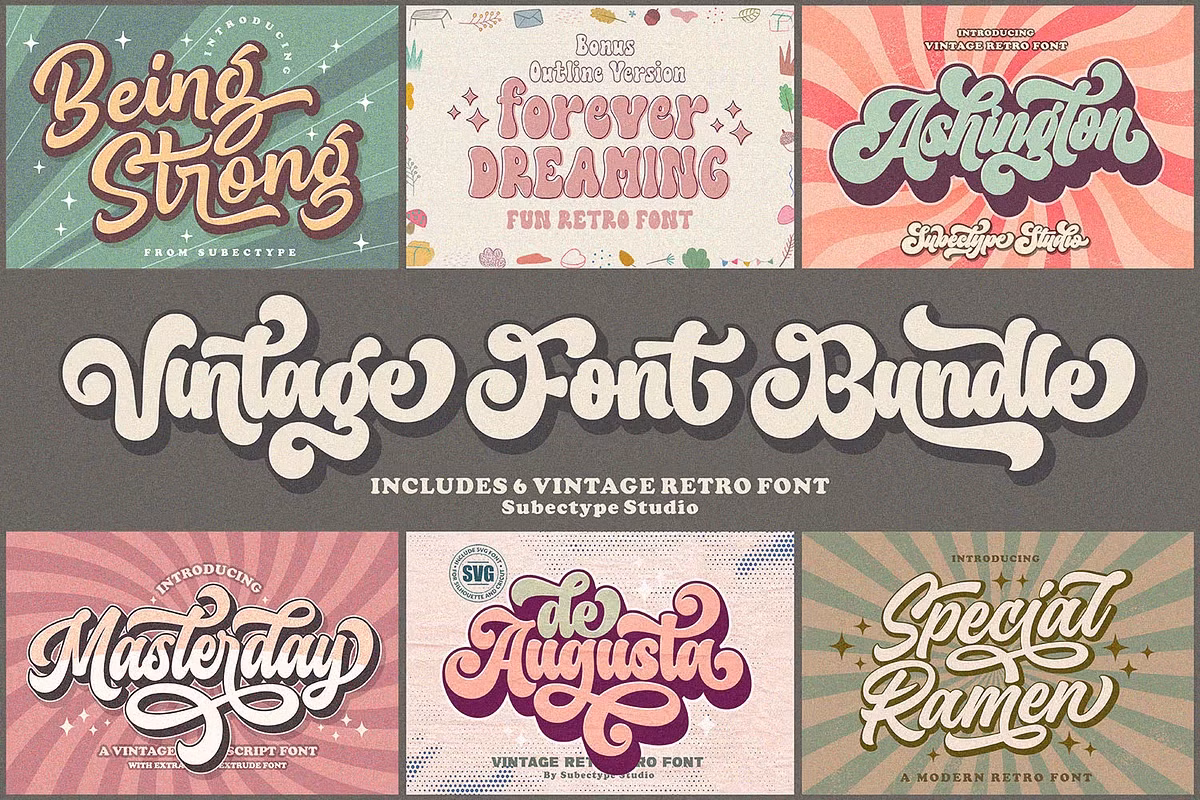
Vintage Retro Font Bundle Free Download
Vintage Retro Font Bundle Free Download is a carefully curated collection of typefaces inspired by the bold, eye-catching designs of the past. Featuring a variety of vintage and retro styles, this bundle includes everything from playful scripts to bold display fonts, perfect for creating logos, posters, branding, and social media content with a nostalgic twist. Whether you're designing for a retro-themed event, a creative campaign, or a vintage brand, Vintage Retro Font Bundle Free Download offers the versatility you need to bring your ideas to life. Experiment with these fonts in personal projects before purchasing a commercial license and elevate your designs with this dynamic, stylish font bundle.